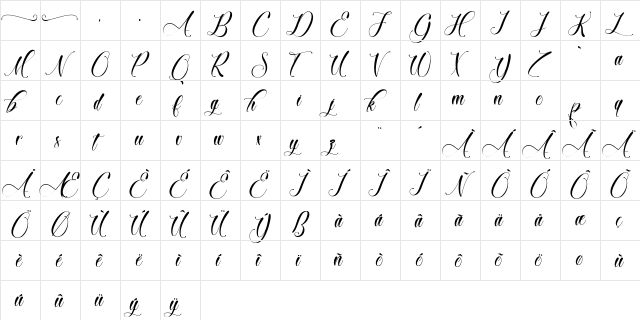
Broken Heart Regular
| Foundry | Typhoon Type - Suthi Srisopha |
| Designer | Typhoon Type - Suthi Srisopha |
Design Context for Broken Heart Typeface
Broken Heart is a composed and adaptable typeface that performs quietly and consistently across a wide range of design contexts.